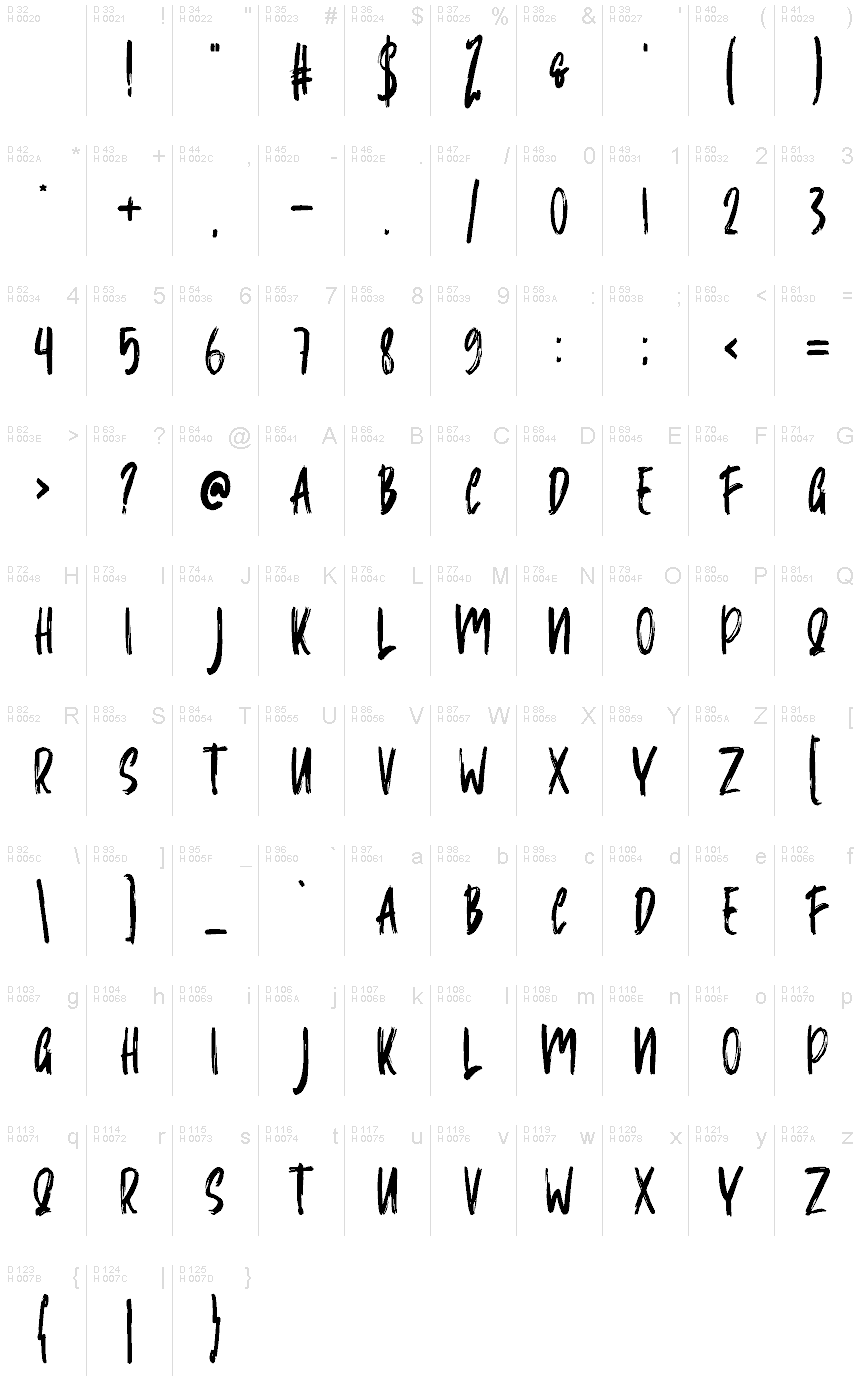
Zeflya
Zeflya font by Skiiller Studio is a brush condensed free handwritten font with a modern aesthetic and casual appearance. With its expressive and artistic flair, it makes for an ideal choice when aiming to capture an impactful visual message in type. Although its standard characters appear dense, they are designed elegantly with signature brush-like textures that guarantee an overall energetic impact.